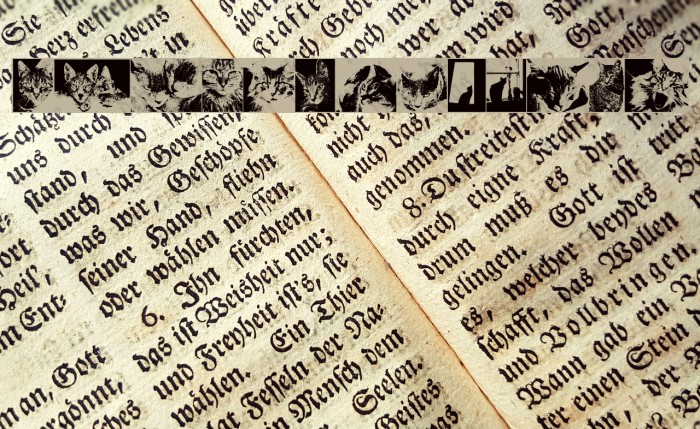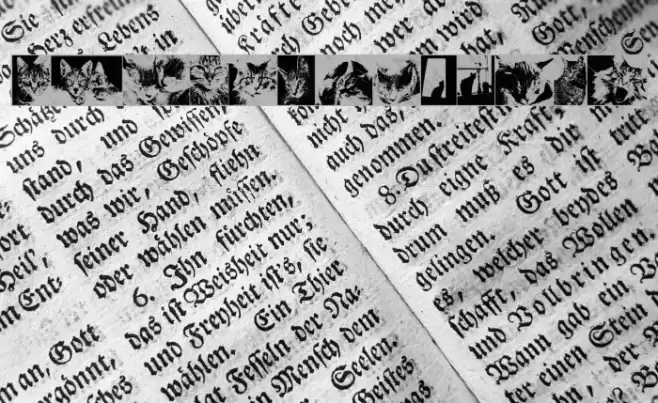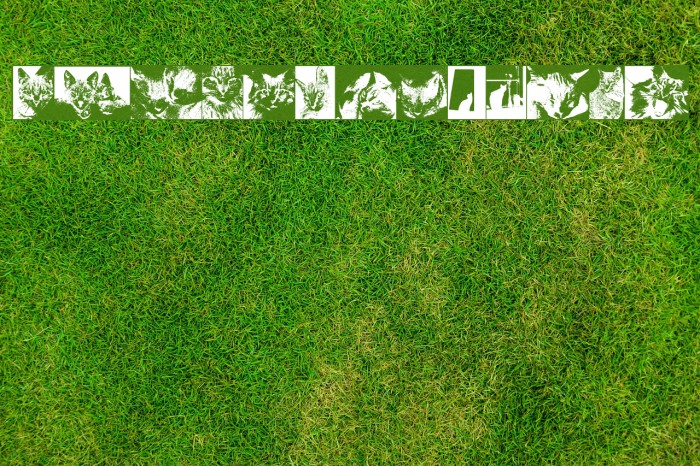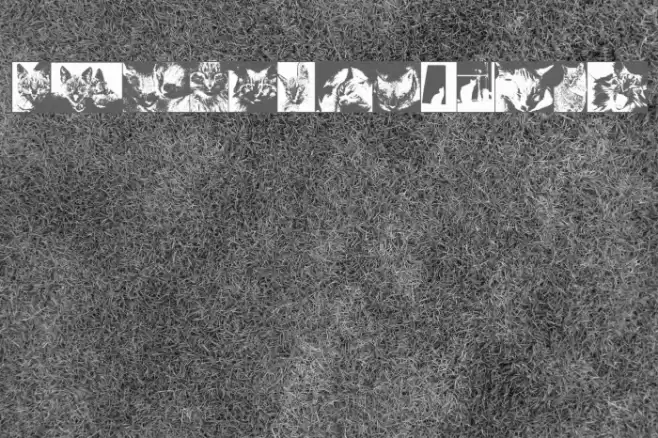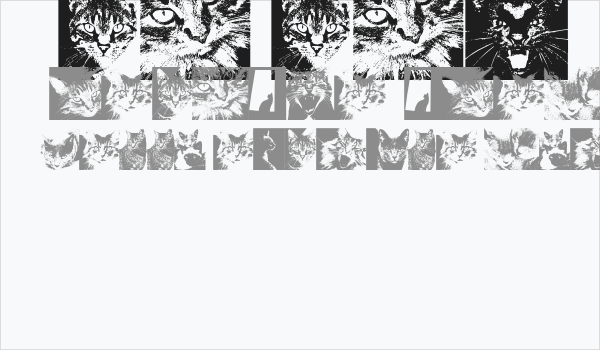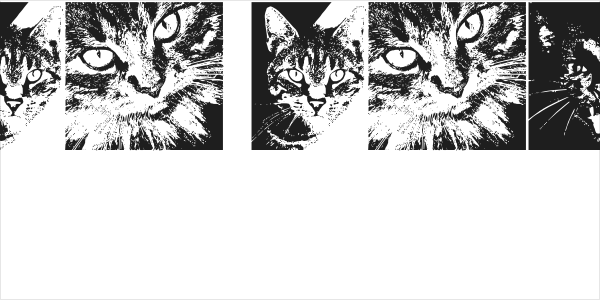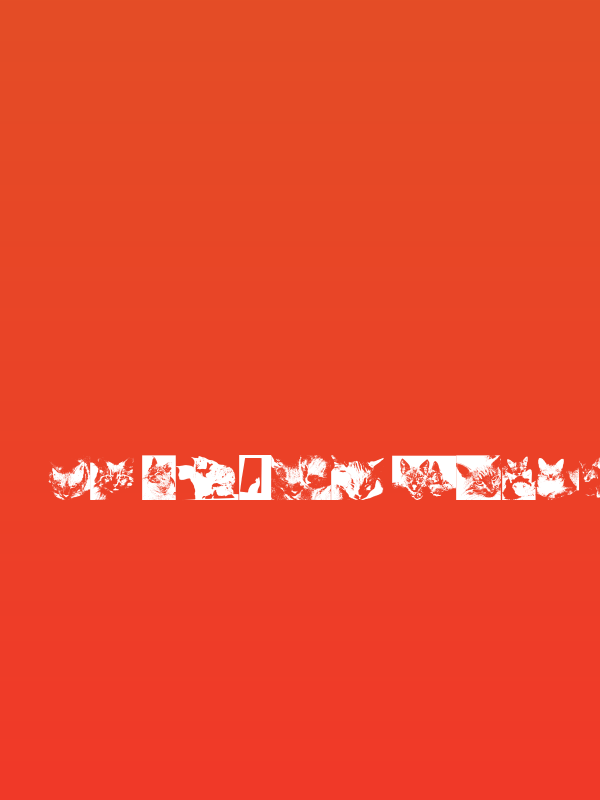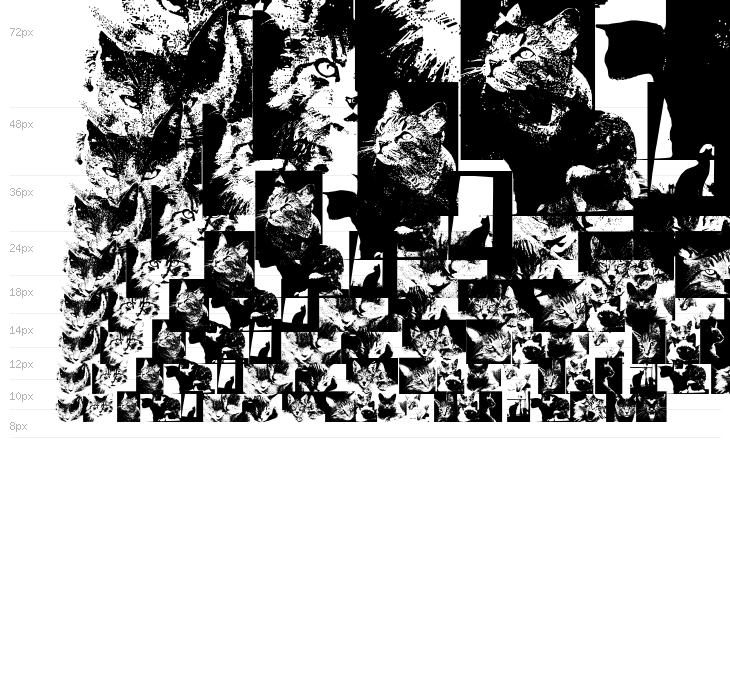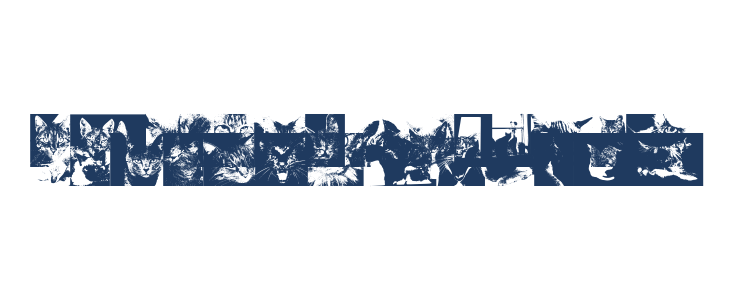
CatBats Font
CatBats Description
This unique decorative font features a playful and whimsical design, incorporating detailed images of cats and bats within each character. The letters are filled with intricate illustrations, making each character a mini artwork. The font is highly stylized and visually engaging, perfect for projects that require a touch of creativity and fun. The characters are bold and distinct, with a strong visual presence that captures attention. The font's design is ideal for thematic projects, especially those related to animals, Halloween, or fantasy themes.
Overall StyleWhimsical and Playful
Use CaseLogos, Posters, Invitations
Proposed ProjectsIdeal for Halloween-themed designs, children's book covers, animal-related posters, and creative invitations.